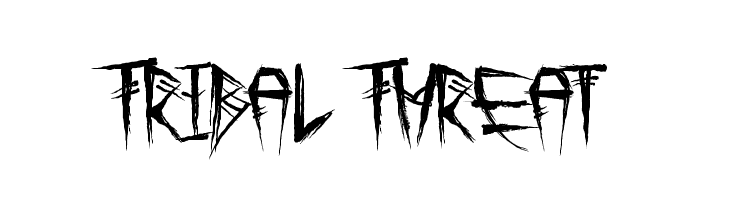
A bold, tribal-inspired font with sharp, jagged edges and a graffiti-like style.
A bold, tribal-inspired font with sharp, angular edges and intricate detailing.